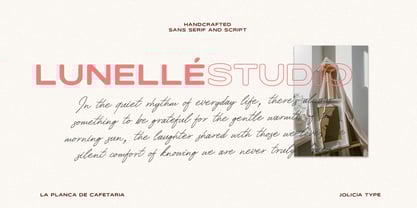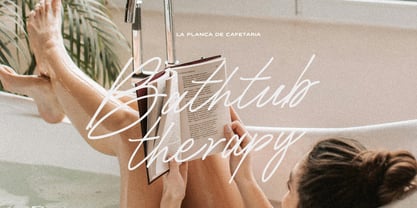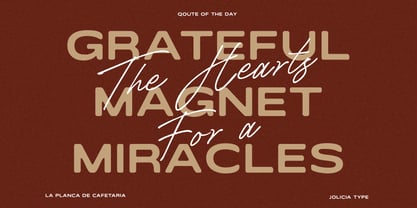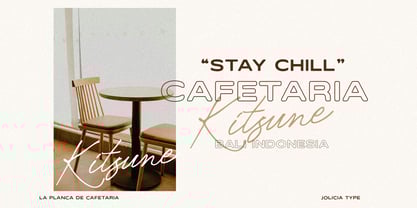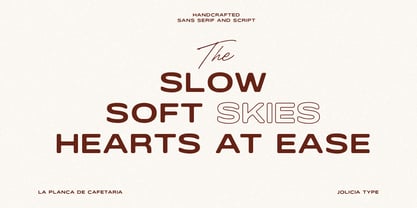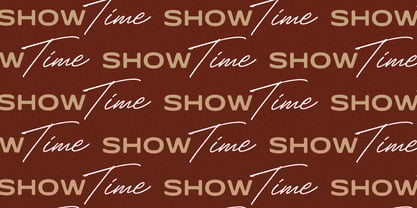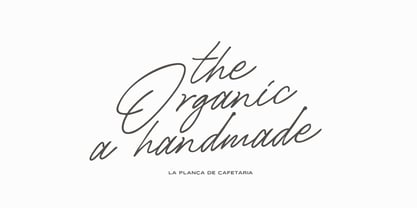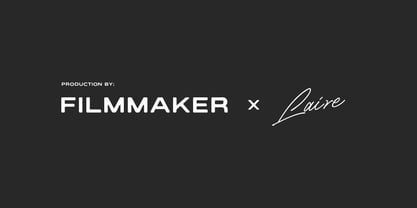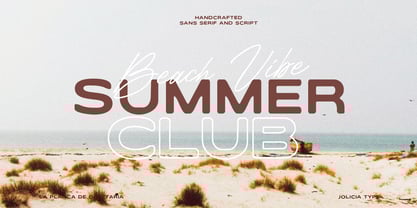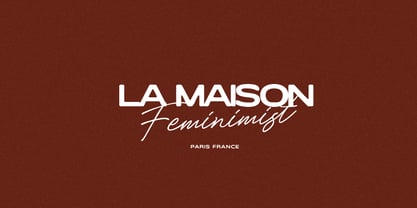
La Planca de Cafetaria
by Jolicia Type
The La Planca de Cafetaria Font Family was designed by Laire Banyu, Dyaharum Pungki Revitasari and published by Jolicia Type. La Planca de Cafetaria contains 3 styles and family package options. More about this family
La Planca de Cafetaria is a modern font duo that blends the sophistication of an elegant sans serif with the charm of a handwritten script. Designed to deliver an aesthetic, clean, and timeless look, this font is the perfect choice for creative projects that need both a professional and personal touch.
The contrast between the bold, confident sans serif and the graceful, flowing script makes La Planca de Cafetaria incredibly versatile—ideal for branding, logos, packaging design, wedding invitations, promotional posters, and stylish social media content. Each letter is crafted with balanced proportions, precise details, and a refined elegance that radiates premium quality.
Designers: Laire Banyu, Dyaharum Pungki Revitasari
Foundry: Jolicia Type